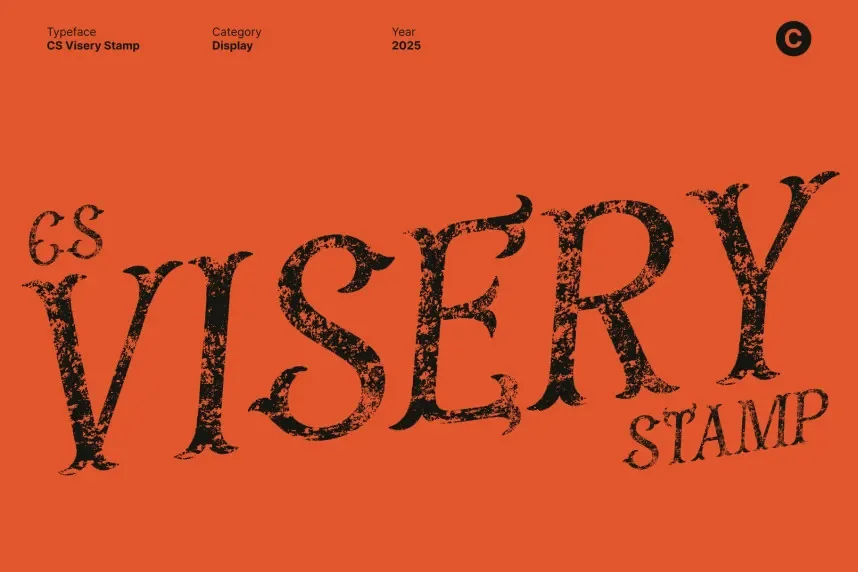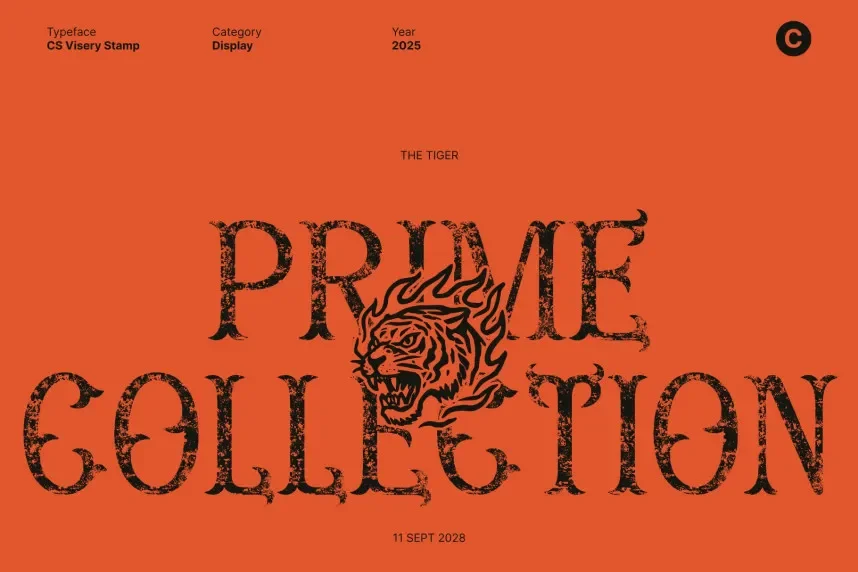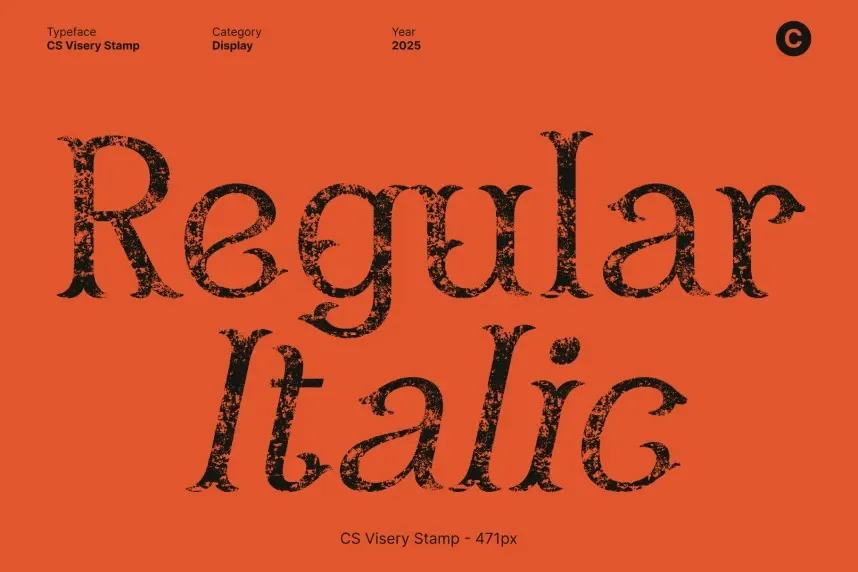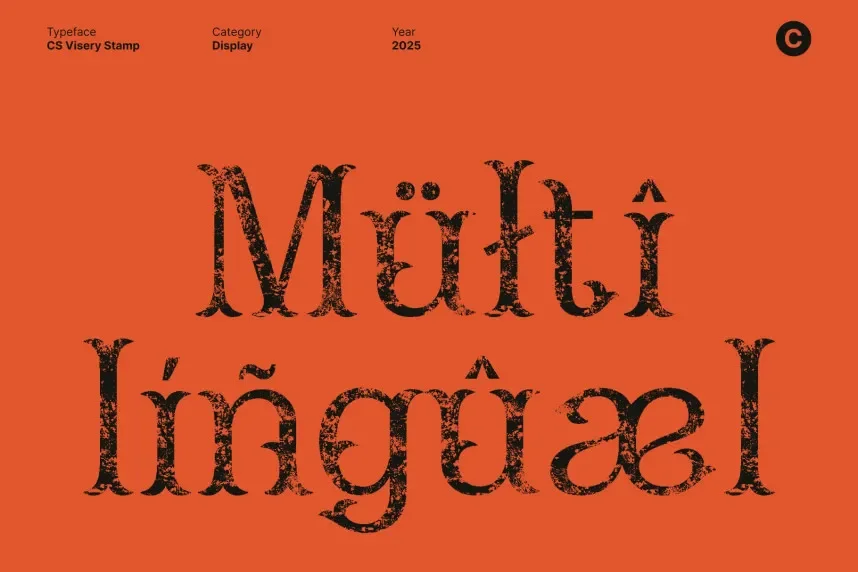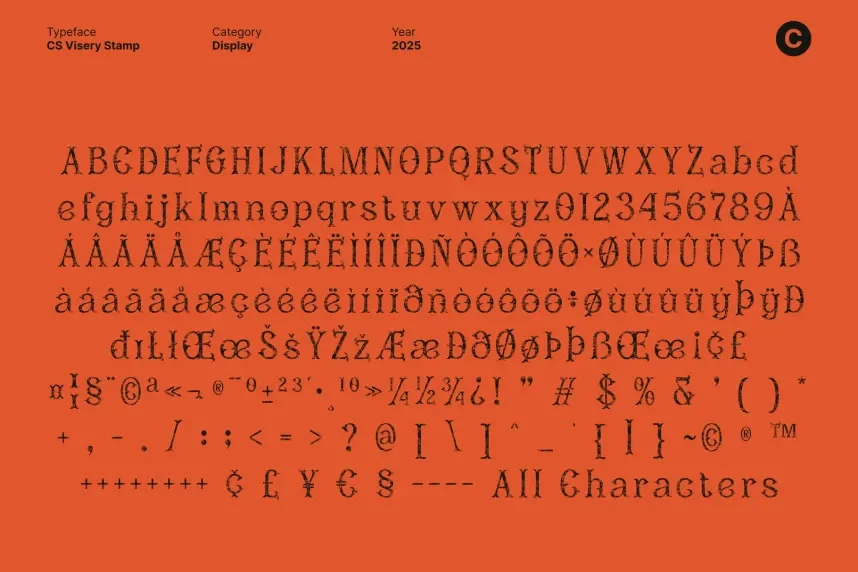
CS Visery Stamp Font is a display typeface created for designers who need textured lettering that stays readable. It addresses common problems with overly decorative stamp fonts that lose clarity in logos and packaging.
The font uses bold letterforms, rough contours, and consistent spacing. The distressed texture adds character without breaking letter structure. CS Visery Stamp Font performs best in short text, headings, and brand marks.